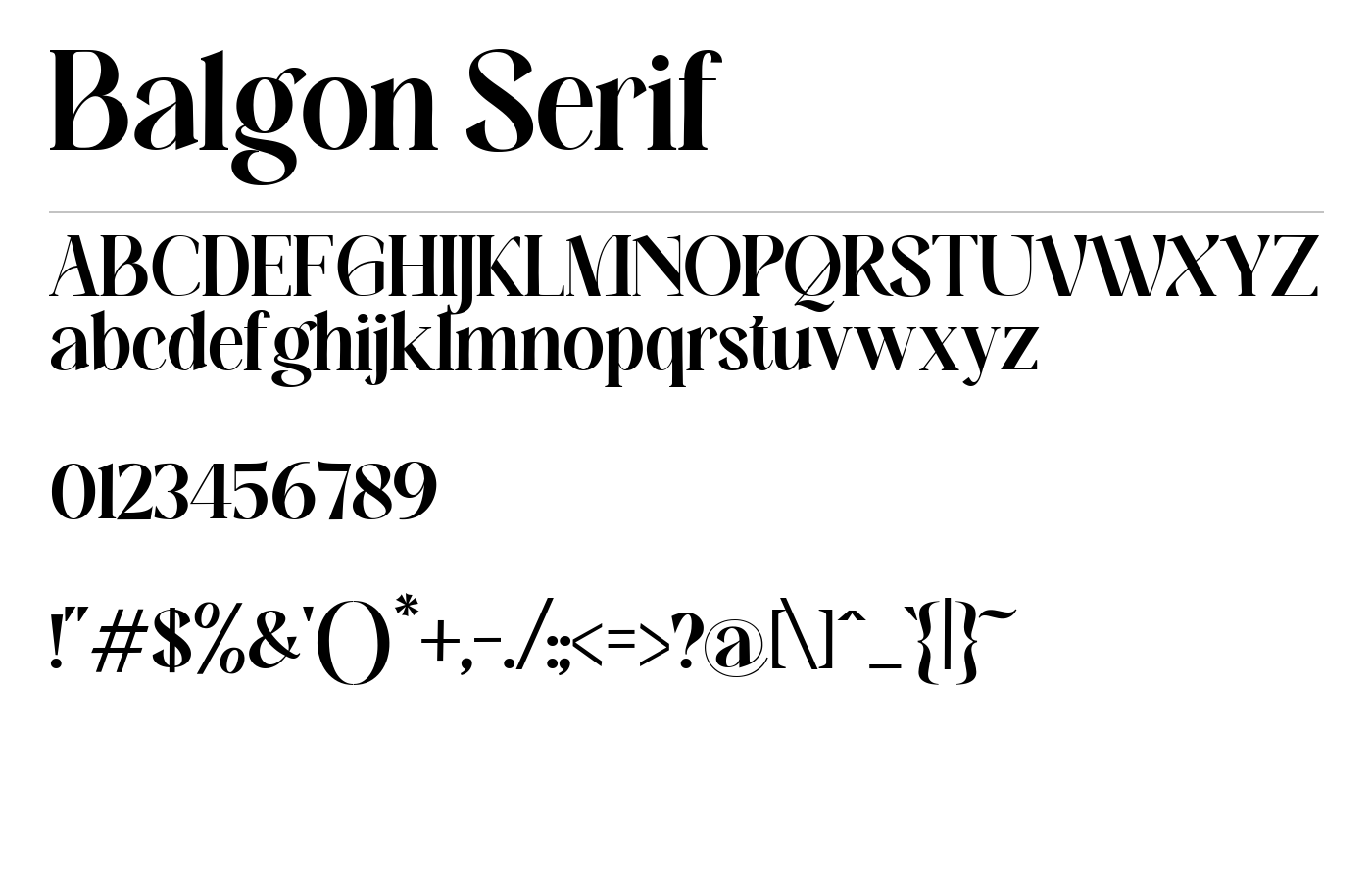
Balgon Serif is an elegant and modern serif font characterized by its high contrast between thick and thin strokes and refined, sharp serifs. Its unique letterforms, including a distinctively curved 'g' and a dynamic 'Q' tail, give it a sophisticated and stylish feel, making it ideal for luxury branding, editorial headlines, and high-end packaging where a touch of contemporary refinement is desired.
Balgon Serif Font